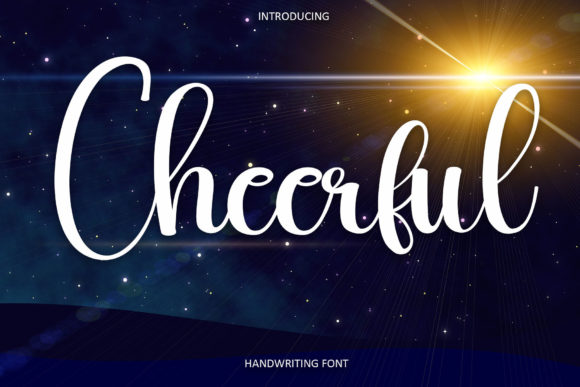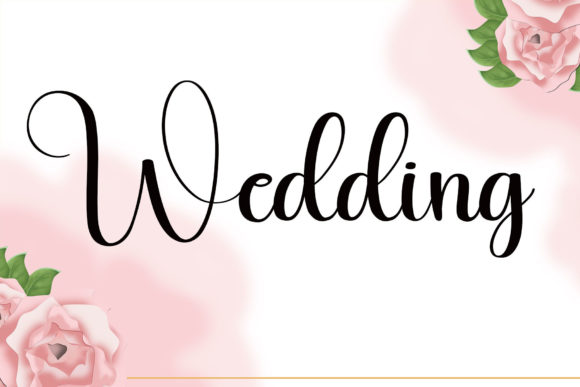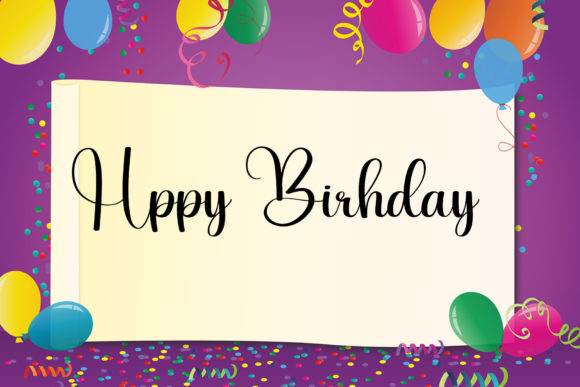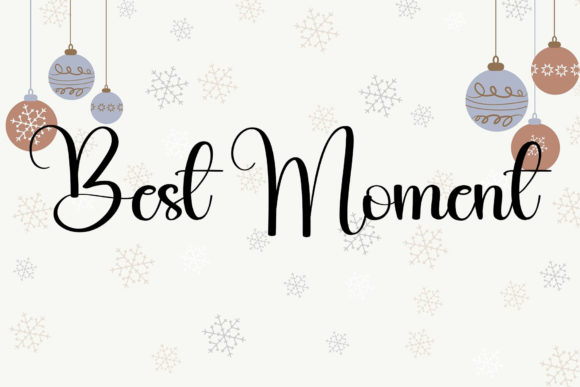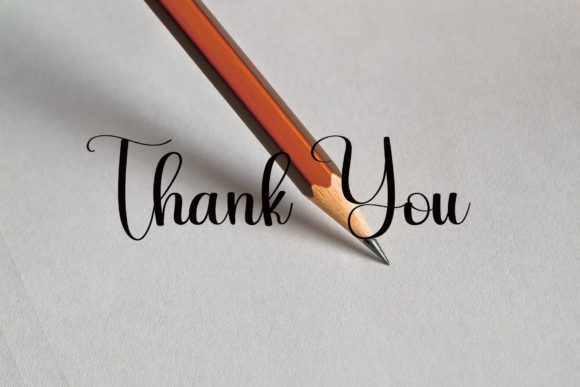
Cheerful Font
About Cheerful Font
Introducing a sweet, romantic, and beautiful script font adorned with exquisite curves in each letter. This font emanates a clean, thin, and smooth vibe, making it a standout choice for any design you wish to grace with its presence.
The beautiful curves in every letter contribute to the font’s overall elegance, creating a visual flow that is both pleasing and captivating. Its clean and thin strokes bring a sense of sophistication, while the smooth vibe adds a touch of refinement to every character.
Picture this font enhancing wedding invitations, where its romantic charm sets the perfect tone for a celebration of love. Envision it adding a sweet touch to various projects, from greeting cards to posters, as it effortlessly infuses each design with warmth and affection. This script font becomes a versatile asset, capable of transforming any project into a visual masterpiece.
Its clean, thin, and smooth attributes make it a hit for a wide array of designs, whether used in branding, signage, social media graphics, or any other creative endeavor. The font seamlessly adapts to different contexts, ensuring that it becomes the perfect complement to your artistic vision.
Embrace the sweet, romantic allure of this script font, allowing it to weave its charm and sophistication into your designs. Its versatility and timeless elegance make it an excellent choice when you want to infuse your creations with a clean, thin, and smooth vibe, turning every project into a visual triumph.